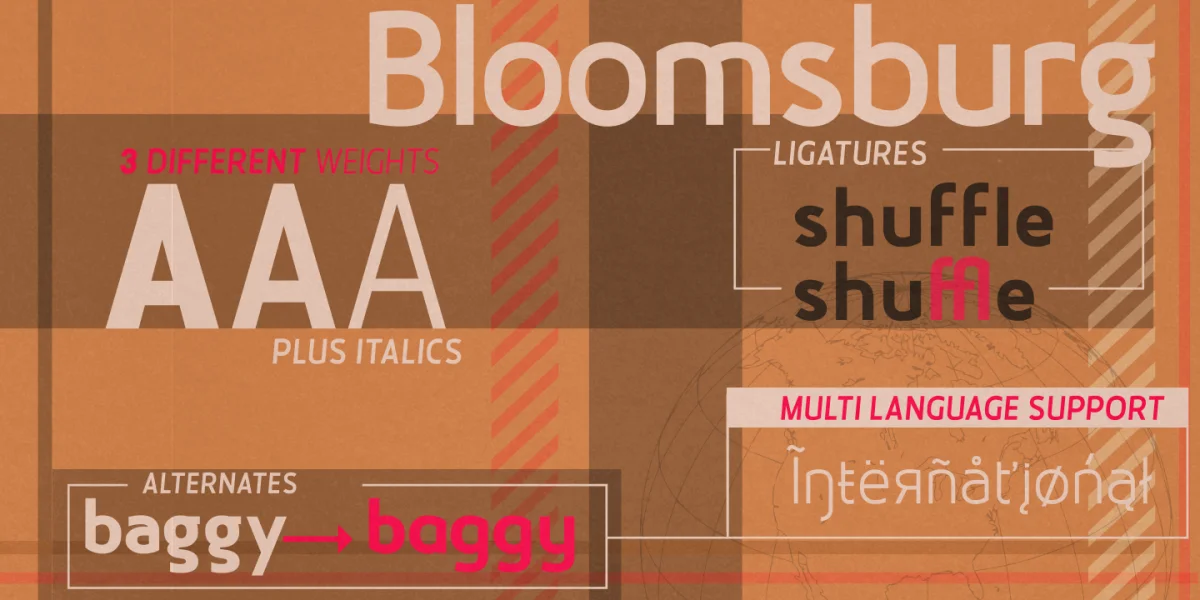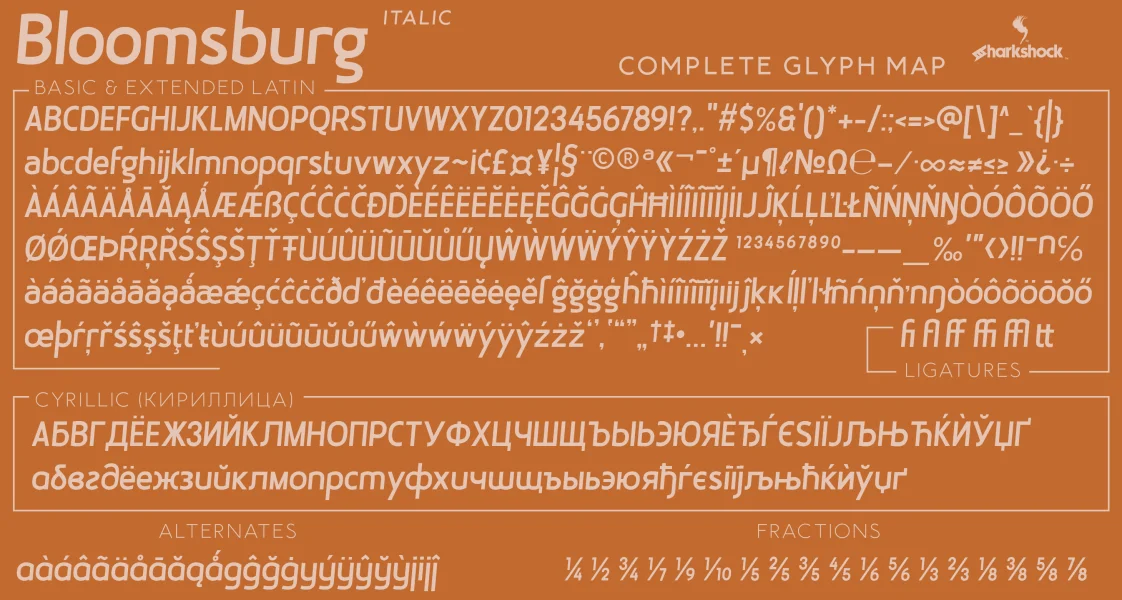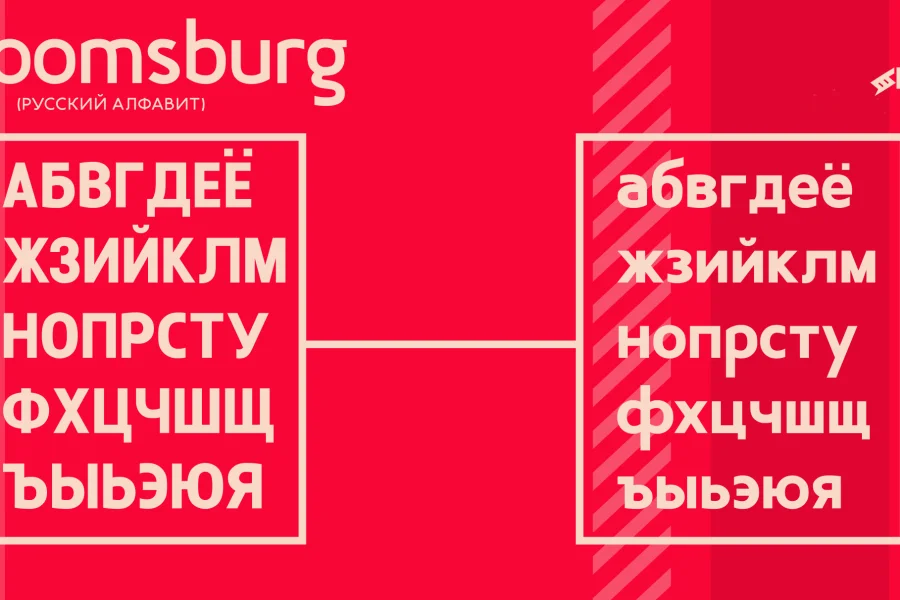
Bloomsburg is a sharp, modern, everyday font with a multitude of uses. This family is characterized by its high legibility, delicate curves, and vertical cuts to most lowercase terminals. Use Bloomsburg for eye catching headlines or try the Bold version for a company logo. Basic Latin, Extended Latin, punctuation, Cyrillic, Serbian support, kerning, ligatures, fractions, and alternates are included. Please check the glyph map for all supported characters. The demo contains basic Latin and limited punctuation.